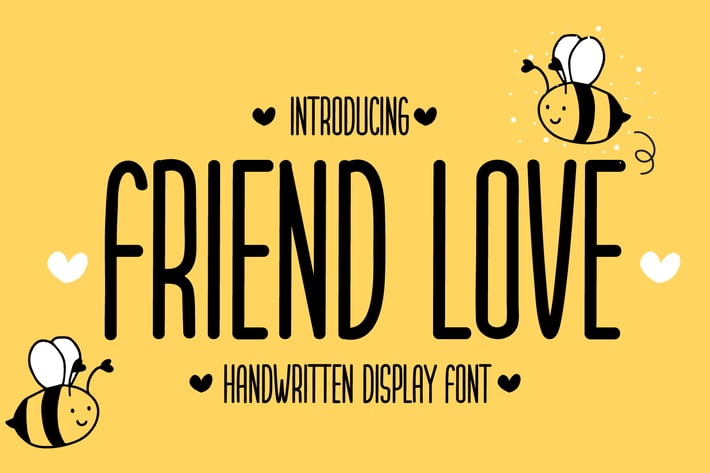
Friend Love - Cute Display Font
Introducing Friend Love - Cute Display Font
Friend Love is a simple and tall display font. Fun, genuine and featuring all round letters, this font will complement each of your design ideas.